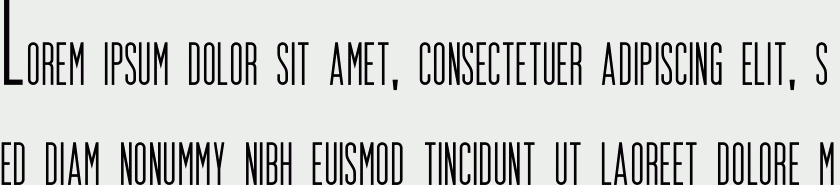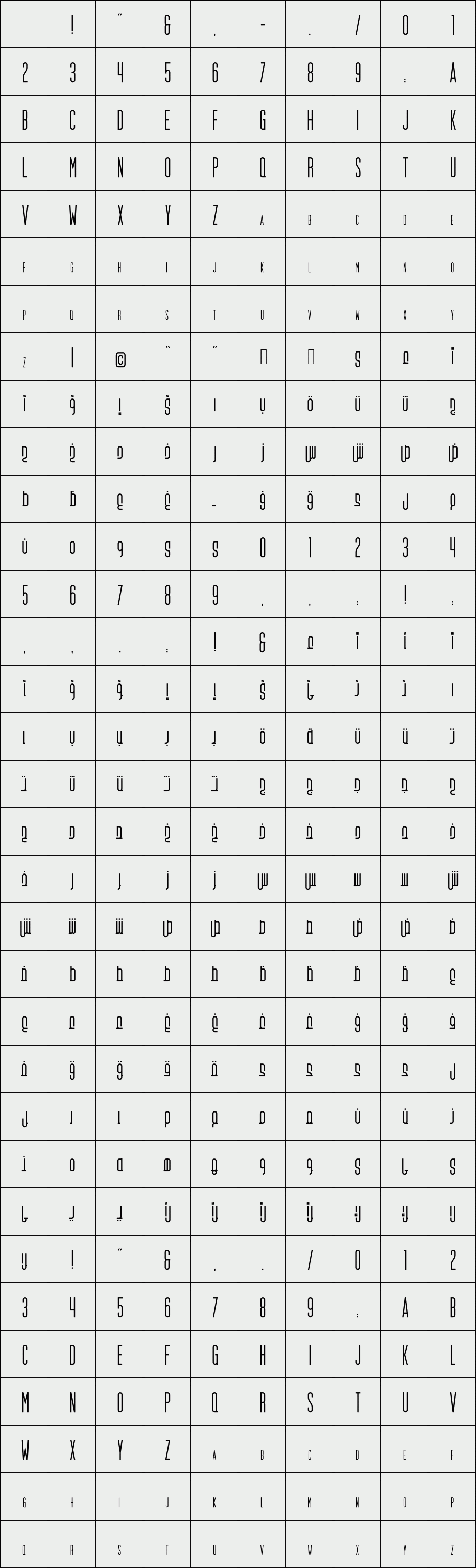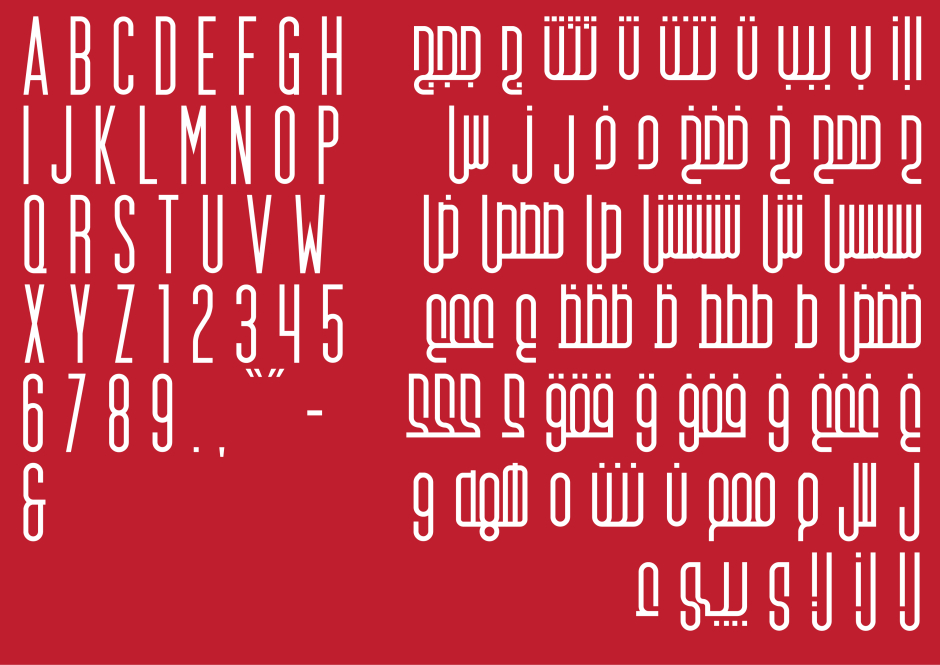
Arabic Condensed
Arabic Condensed font is a tryout in designing condensed Arabic letters along with Latin letters, the font concludes full Arabic and Latin letters.
Designer: Samuel Safyan